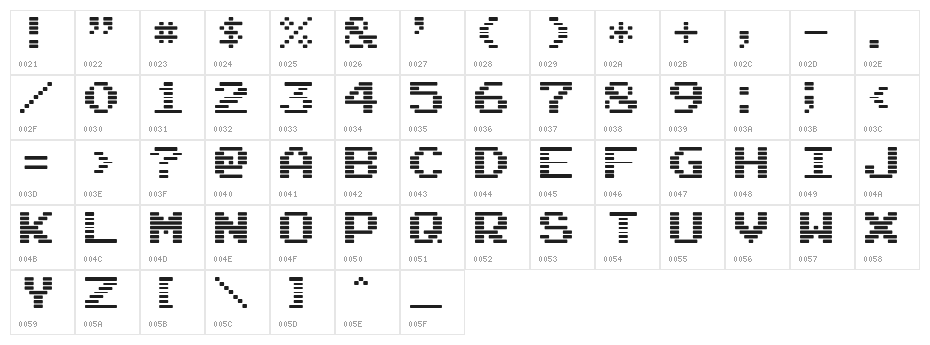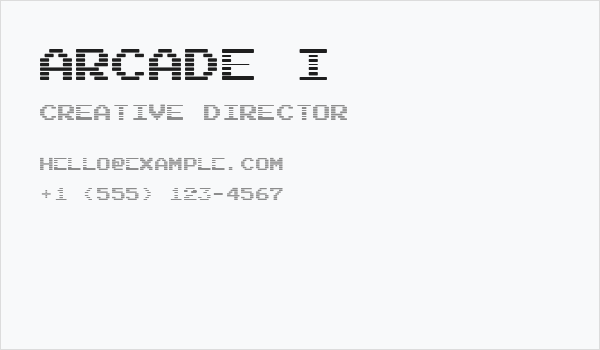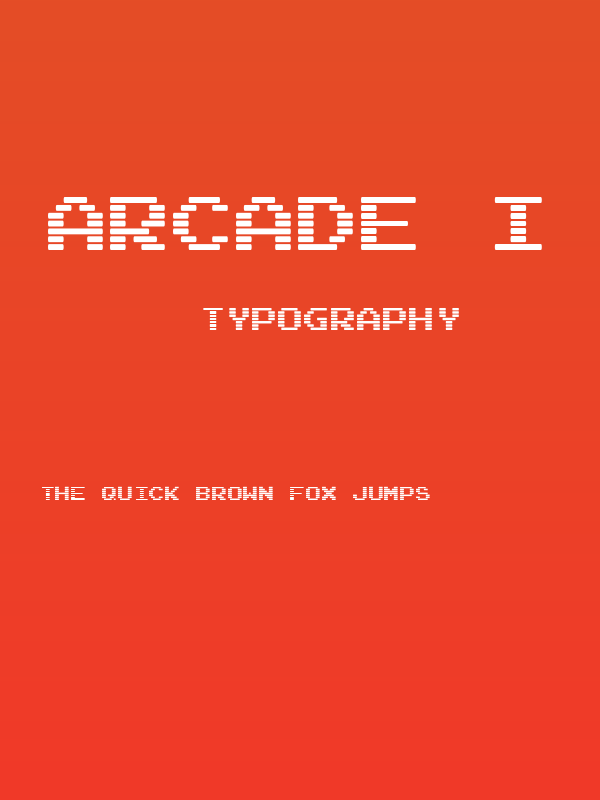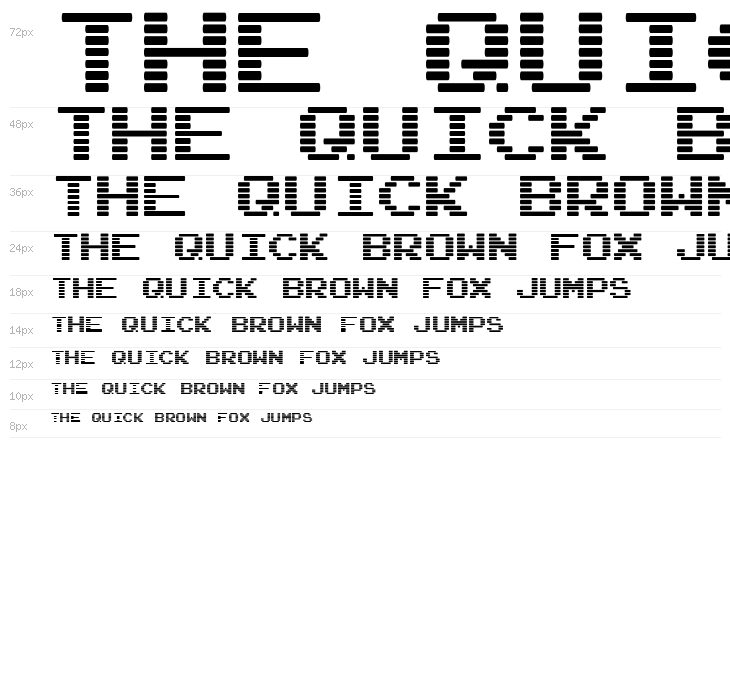
Arcade I Font
Arcade I Description
This font features a distinctive, pixelated design reminiscent of classic arcade games. Each character is constructed using a series of horizontal lines, creating a digital, retro aesthetic. The uppercase and lowercase letters maintain a consistent style, with a blocky, uniform appearance. Numbers and special characters follow the same design principles, ensuring a cohesive look across all elements. The font's unique structure makes it ideal for projects seeking a nostalgic or tech-inspired feel.
| Overall Style | Retro, Digital |
| Proposed Projects | Ideal for video game designs, retro-themed posters, digital art, and tech-related branding. |